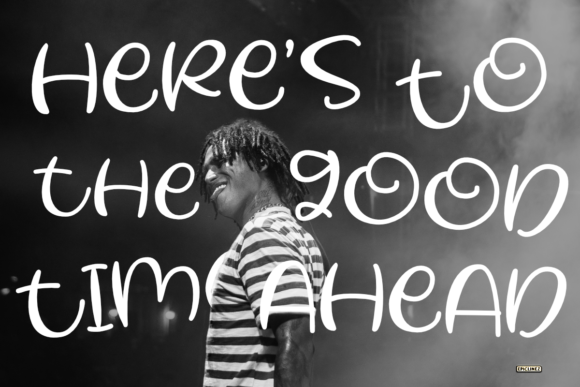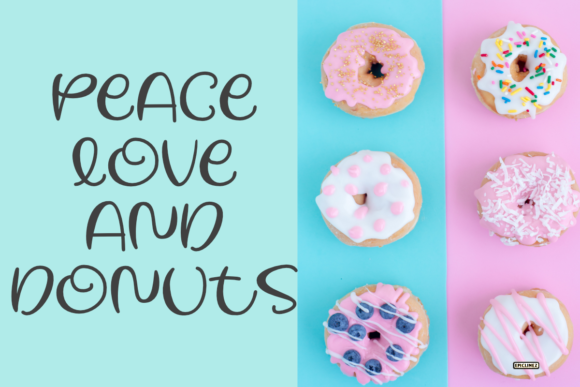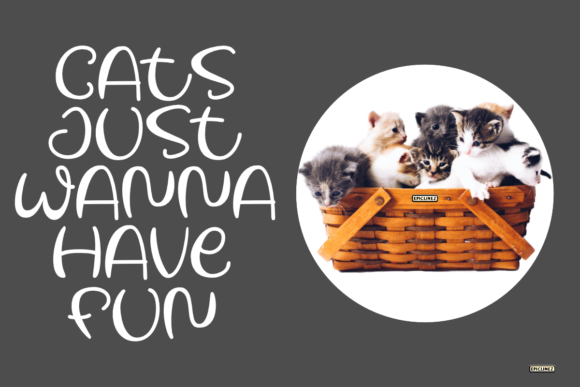
Introducing Cheers Mate Font: The Ultimate Addition to Your Design Arsenal
Are you tired of using the same old fonts in your designs? Look no further! If you’re on the hunt for a font that embodies fun, quirkiness, and authenticity, then Cheers Mate Font is the perfect fit for you. This delightful font is designed to add a joyful touch to your creations, making it an excellent choice for designers and crafters alike.
The Personality of Cheers Mate Font
Cheers Mate Font is more than just a collection of letters; it’s a personality that can be infused into your designs. The font’s unique and quirky style makes it perfect for projects that require a playful and lighthearted approach. Whether you’re creating logos, social media posts, greeting cards, or crafting projects, Cheers Mate Font is sure to bring a smile to your audience’s faces.
What Makes Cheers Mate Font So Special?
So, what sets Cheers Mate Font apart from other fonts out there? Here are a few reasons why this font is a must-have in your design arsenal:
- Fun and Quirky: Cheers Mate Font is designed to be fun and quirky, making it perfect for projects that require a playful touch.
- Authentic: The font’s unique style gives it an authentic feel that’s hard to find in other fonts.
- Versatile: Whether you’re creating logos, social media posts, or greeting cards, Cheers Mate Font is versatile enough to be used in a variety of projects.
- Easy to Read: Despite its quirky style, Cheers Mate Font is easy to read, making it perfect for body text and headings.
Use Cases for Cheers Mate Font
So, how can you use Cheers Mate Font in your designs? Here are a few ideas to get you started:
- Logos: Add a playful touch to your logos with Cheers Mate Font. It’s perfect for businesses that want to convey a fun and approachable personality.
- Crafting: If you’re a crafter, Cheers Mate Font is a great addition to your design toolkit. Use it to create unique and personalized crafts that stand out.
- Social Media Posts: Add some personality to your social media posts with Cheers Mate Font. It’s perfect for creating engaging and shareable content.
- Greeting Cards: Create unique and personalized greeting cards with Cheers Mate Font. It’s a great way to add a touch of personality to your cards.
Tips for Using Cheers Mate Font
Here are a few tips for getting the most out of Cheers Mate Font:
- Experiment with Colors: Cheers Mate Font looks great in a variety of colors. Experiment with different color combinations to find the one that works best for your design.
- Mix and Match: Don’t be afraid to mix and match Cheers Mate Font with other fonts. It’s a great way to add some visual interest to your designs.
- Keep it Simple: While Cheers Mate Font is perfect for adding a playful touch to your designs, it’s essential to keep your designs simple and easy to read.
| Font Name | Cheers Mate Font |
| Author | Epiclinez |
In conclusion, Cheers Mate Font is a fantastic addition to any designer’s toolkit. Its unique and quirky style makes it perfect for projects that require a playful and lighthearted approach. With its versatility, ease of use, and authentic feel, Cheers Mate Font is sure to become a favorite among designers and crafters alike. So why not give it a try and add a joyful touch to your designs?
Get Ready to Cheers with Cheers Mate Font!